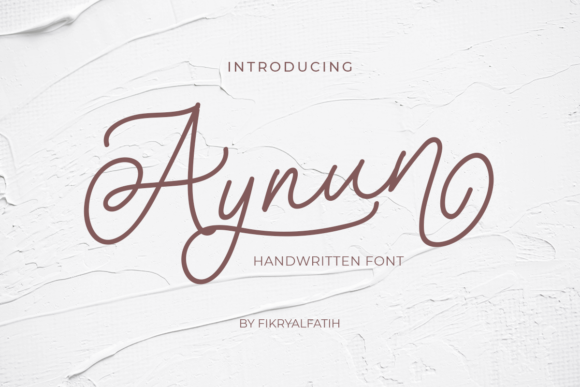
The Elusive Perfect Font: My Encounter with Aynun
Ah, the quest for the perfect font. It’s a journey every designer, crafter, and creative hobbyist can relate to. I recall working on a project, pouring my heart and soul into it, but feeling like something was off. The design was beautiful, but it lacked that special something that would make it truly shine. And then it hit me – the font. It was like a eureka moment! I needed a font that exuded elegance, class, and a touch of whimsy. That’s when I stumbled upon Aynun, a lovely and delicate script font that has since become my go-to for adding a touch of sophistication to my designs.
An Honest Review of Aynun
So, what makes Aynun so special? Let’s dive into the good stuff and, of course, the not-so-perfect aspects.
What I Love About Aynun ✨
- ✨ Elegant and Classy: Aynun brings a level of sophistication to any design, making it perfect for projects that require a touch of luxury.
- 🌈 Versatile: Aynun is suitable for a wide range of projects, from wedding invitations to branding and packaging.
- 💻 Easy to Use: Whether you’re a seasoned designer or a beginner, Aynun is easy to work with, and its features are intuitive to navigate.
- ⚠️ Occasional Kerning Issues: As with any font, there might be some kerning issues, especially when using certain character combinations.
- 🤔 Not Suitable for Body Text: Aynun is a script font, and as such, it’s best used for headlines, titles, or short paragraphs.
The Story Behind Aynun
Aynun was crafted with love and care by a talented font designer who aimed to create a font that would bring elegance and class to any design. Inspired by the beauty of handwritten scripts, Aynun was designed to be versatile, easy to use, and, most importantly, stunning.
Q: Is Aynun suitable for body text?
A: While Aynun is a beautiful font, it’s best used for headlines, titles, or short paragraphs. For body text, consider using a more legible font.